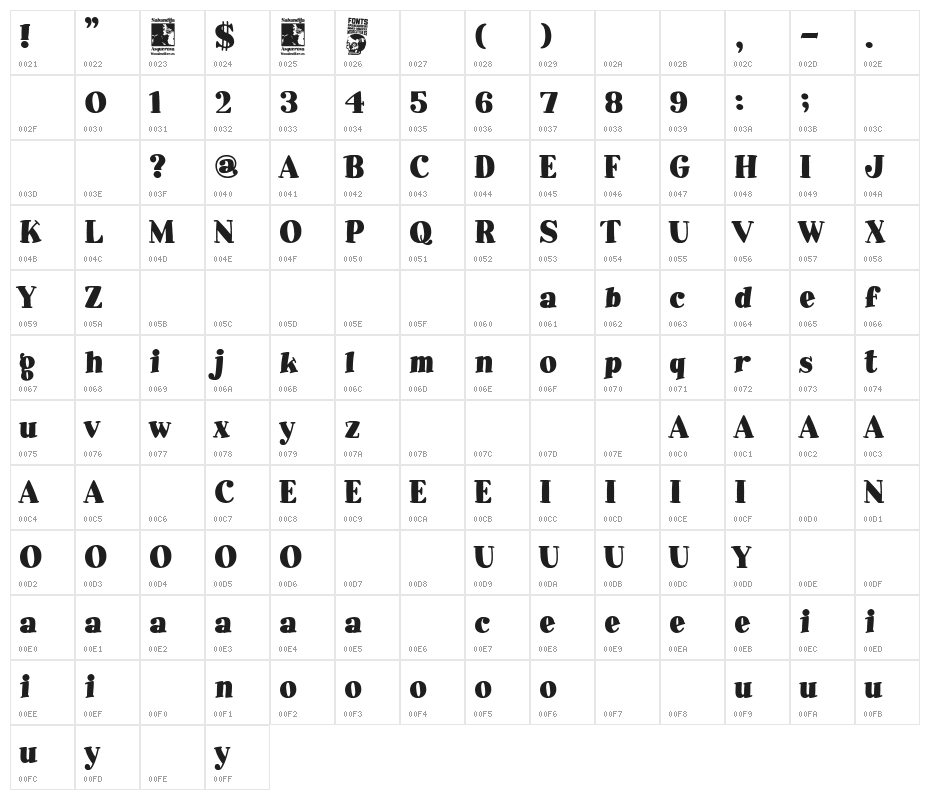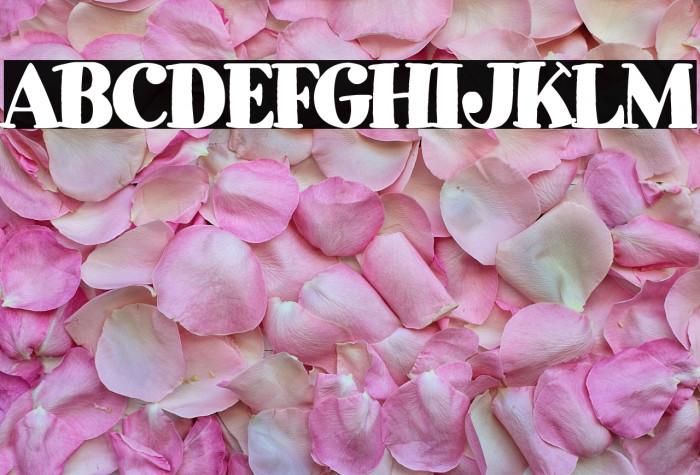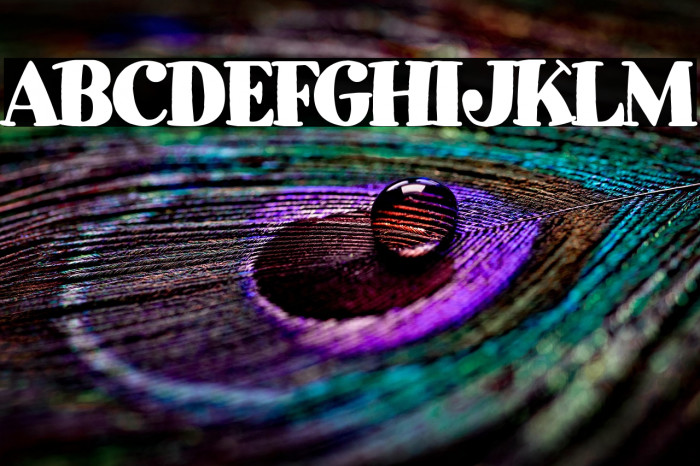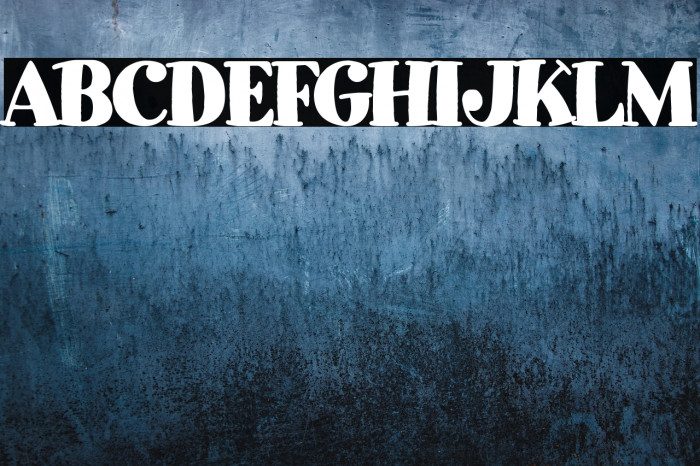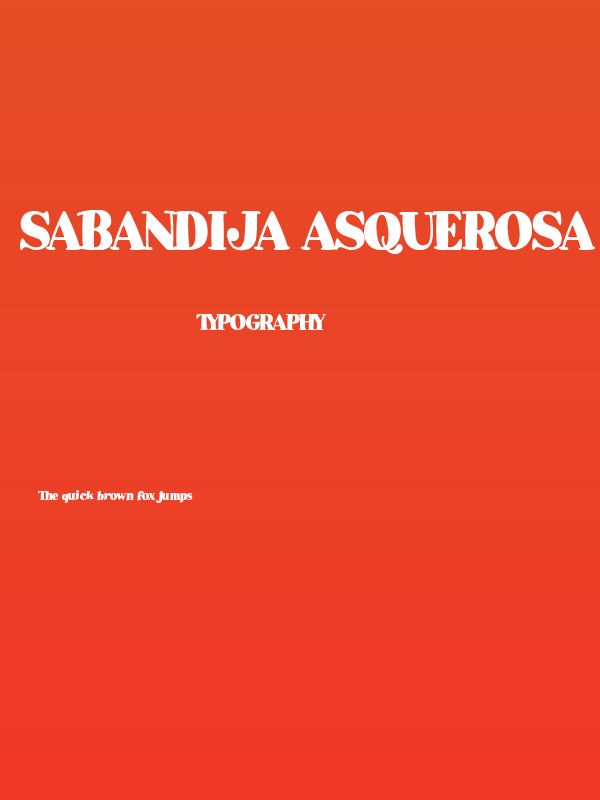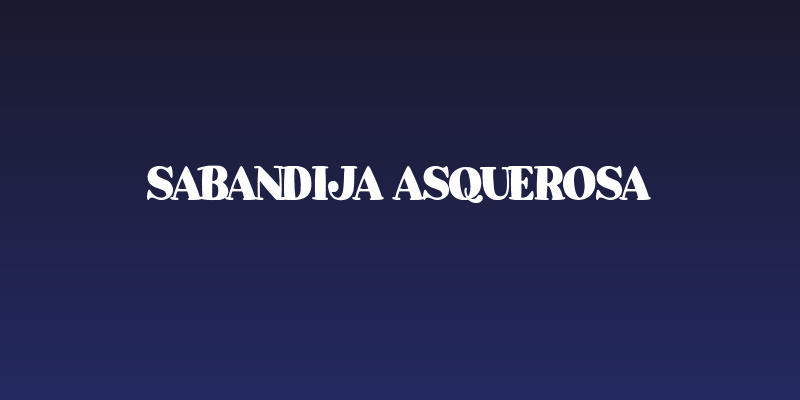
Sabandija Asquerosa Font
Sabandija Asquerosa Description
This font features a bold and dramatic style with thick, heavy strokes and high contrast between thick and thin lines. The characters have a slightly condensed appearance, giving them a compact and powerful look. The serifs are prominent and add a touch of vintage flair, while the overall design maintains a modern edge. The uppercase letters are particularly striking, with unique curves and angles that make them stand out. The lowercase letters complement the uppercase with a consistent style, and the numerals are equally bold and impactful. Special characters are creatively designed, adding to the font's decorative appeal.
| Overall Style | Vintage, Modern |
| Proposed Projects | Ideal for posters, headlines, branding, and any project requiring a strong visual impact. |